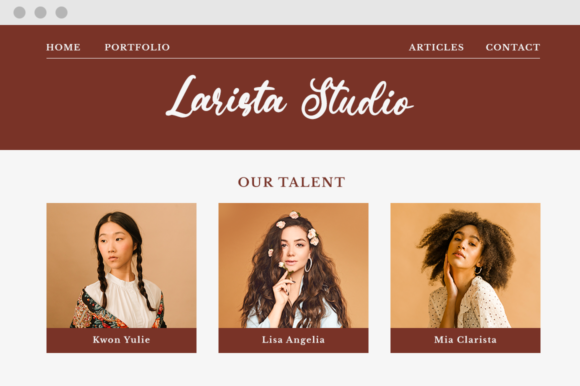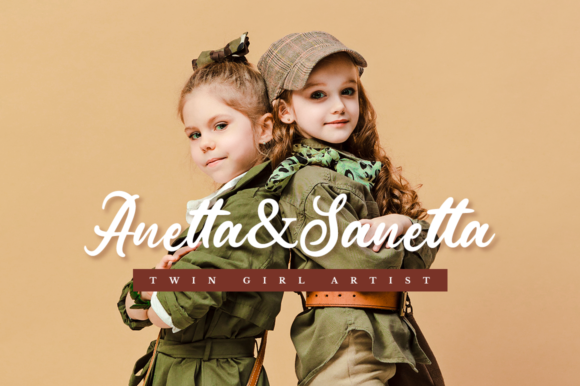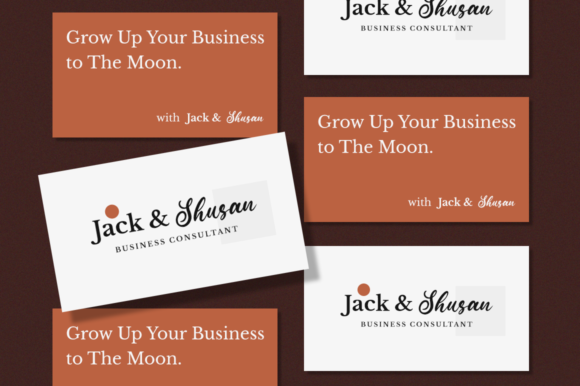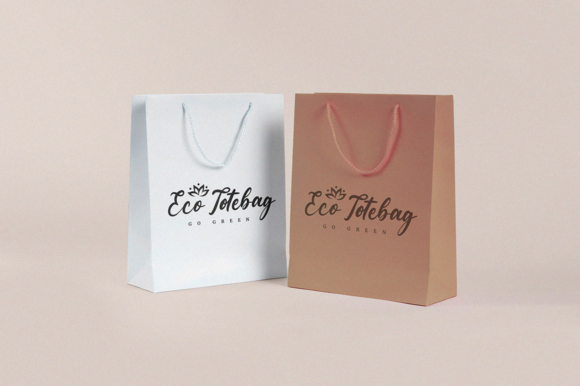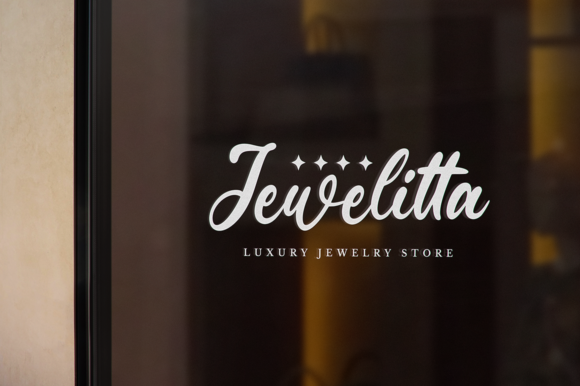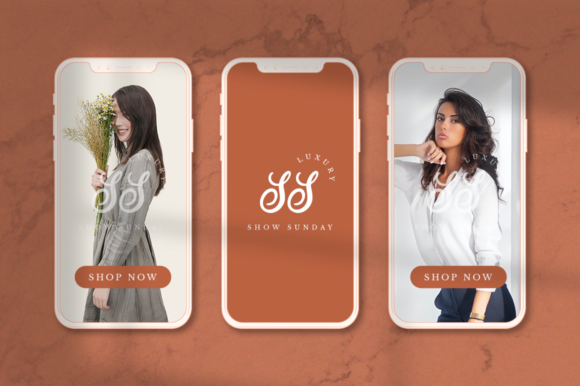
Introduction to Savilista Font
Have you ever been working on a creative project and felt like it’s missing that special something? The perfect phrase, the ideal image, the exact font to tie everything together? For designers, finding that perfect design resource can be the difference between a good project and a great one.
I’ve been there myself, scrolling through font libraries and searching for that elusive perfect match. And then, one day, I stumbled upon the Savilista Font. Its charming, playful characters seemed to dance along the baseline, immediately catching my eye and making my creative project stand out in a whole new way.
With its high-quality design and transparent background, the Savilista Font is a valuable addition to any designer’s toolkit. And the best part? It’s available for free download, making it accessible to designers of all levels.
Key Features of Savilista Font
- High-quality font designed specifically for creative projects, offering a unique and modern aesthetic.
- Comes in a transparent background, allowing for seamless integration with various design elements.
- Designed at a high resolution (300 DPI) to ensure crisp and clear text rendering.
- Suitable for a variety of design applications, including logos, graphics, and digital art.
- Unique characteristics and stylings make it an excellent choice for designers seeking a distinctive look.
Honest Review: Savilista Font
As a designer, I’m always on the lookout for high-quality design resources to elevate my creative projects. The Savilista Font caught my attention with its unique style and versatility.
What works well about the Savilista Font is its modern and sleek aesthetic, making it perfect for a variety of designs, from branding to digital products. The font’s open and airy feel is also great for creating a sense of transparency, much like a transparent background in a design.
Here are some of the Savilista Font’s key features:
- High-quality design with a modern aesthetic
- Perfect for branding, digital products, and creative projects
- Unique and versatile style
However, I did encounter some limitations with the Savilista Font. The font’s design can feel a bit overused, and it may not be the best choice for more traditional or conservative designs.
⚠️ Limitations: May feel overused in certain designs
Overall, I’d say the Savilista Font is a great addition to any designer’s toolkit, especially for those looking for a modern and sleek aesthetic. While it may have some limitations, its versatility and high-quality design make it a valuable resource for any creative project.
✨ Great for: Modern and creative designs, branding, and digital products
Tips for Getting the Most Out of the Savilista Font
Use the Savilista Font in combination with a transparent background to create a clean and modern design. Experiment with different font sizes and styles to add visual interest to your design project.
The Savilista Font is perfect for creative projects that require a high-quality, professional font. Use it for business cards, brochures, or any other design project that needs a touch of sophistication.